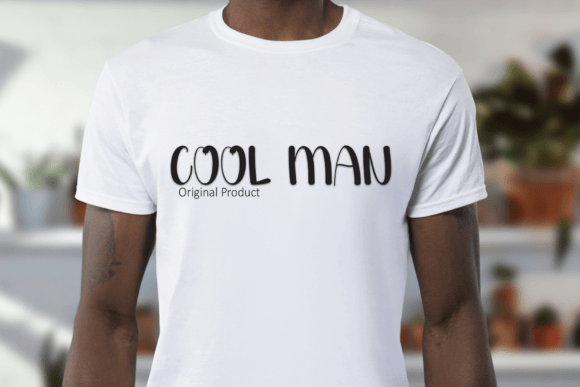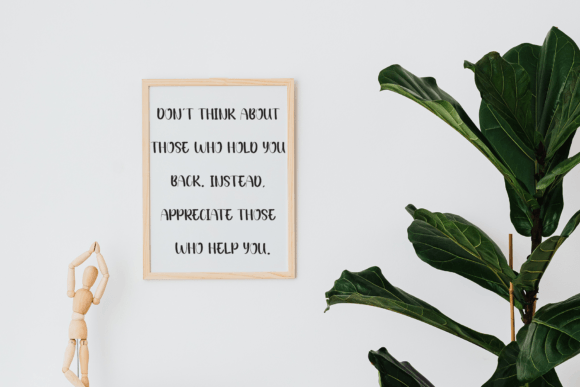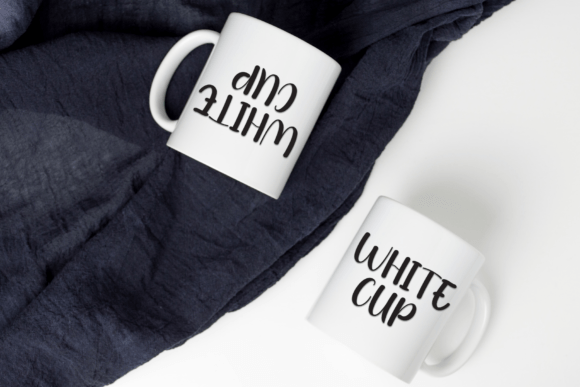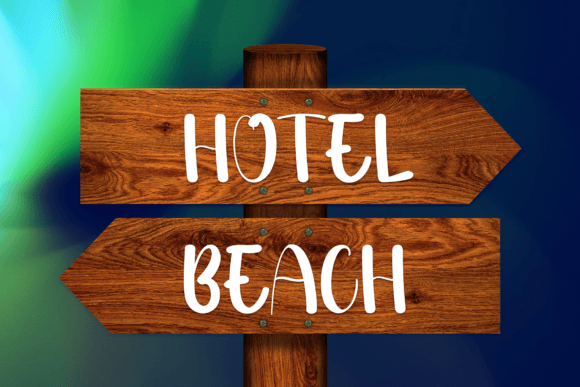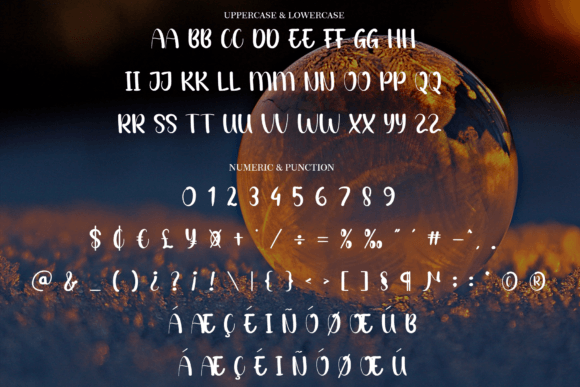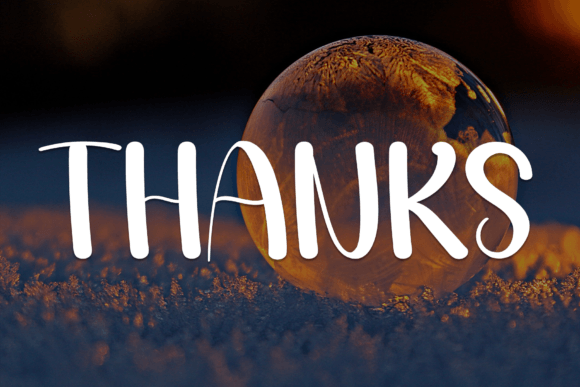
Introduction to Snow Bubbles Font
Snow Bubbles is a sweet and friendly handwritten font.
Fresh and cute, this font is ideal for writing wedding invitations, cards, or any other design that might need a fun touch .